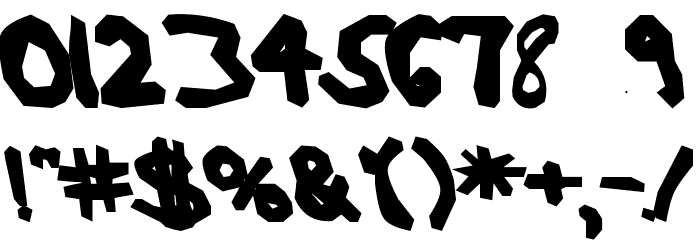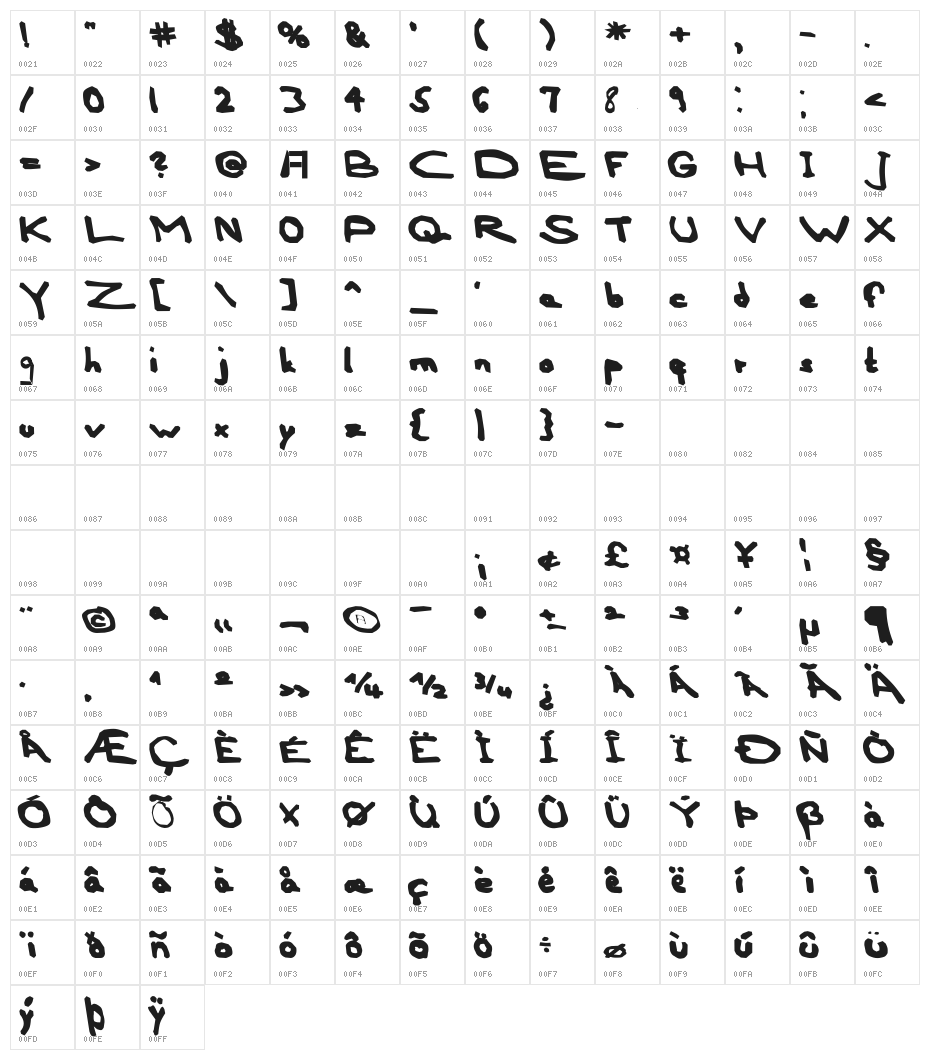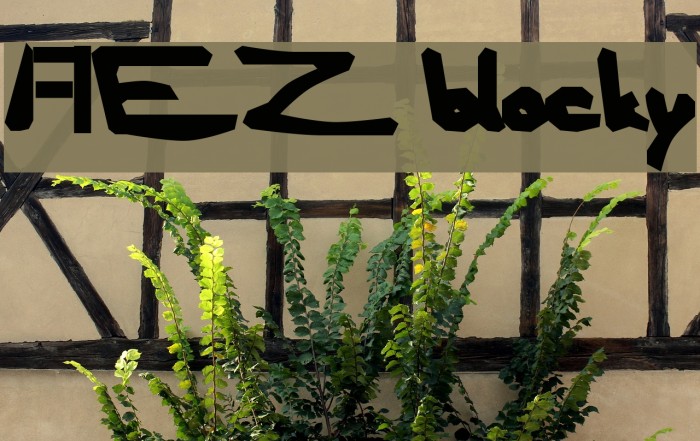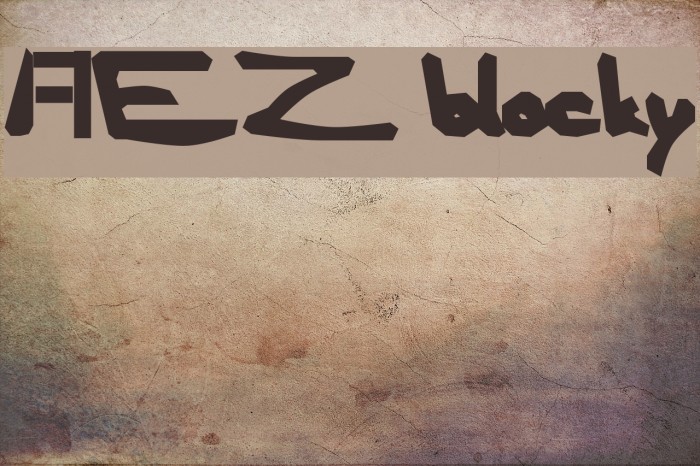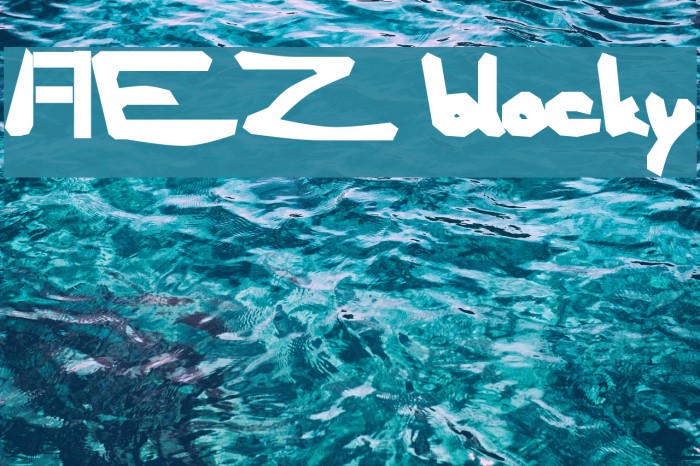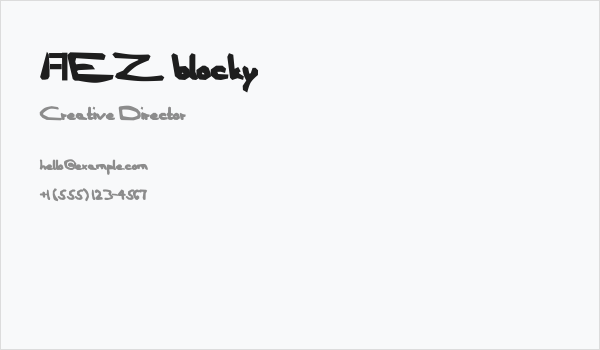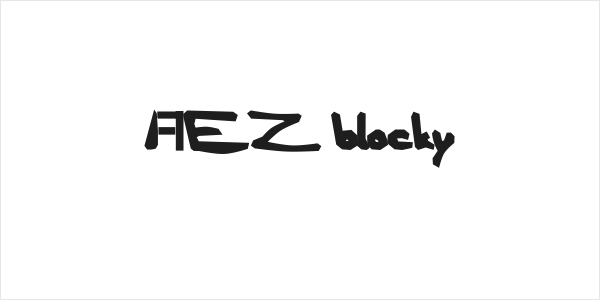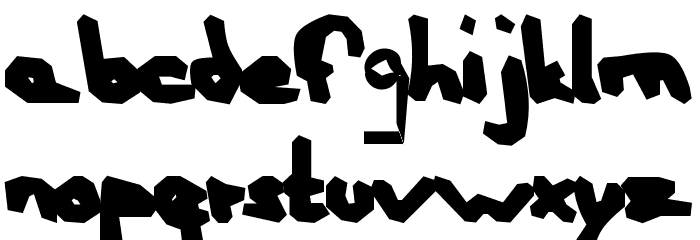
AEZ blocky Font
AEZ blocky Description
This font features a bold, blocky style with a hand-drawn appearance. The uppercase letters are angular and geometric, giving a sense of strength and stability. The lowercase letters maintain the blocky aesthetic but with a slightly more playful and informal touch. Numbers and special characters follow the same bold and chunky design, ensuring consistency across all elements. The font's unique style makes it stand out, ideal for projects that require a strong visual impact. Its hand-crafted look adds a personal and artistic flair, making it suitable for creative and unconventional designs.
| Proposed Projects | Ideal for posters, headlines, logos, and artistic projects that require a bold and unique visual impact. |